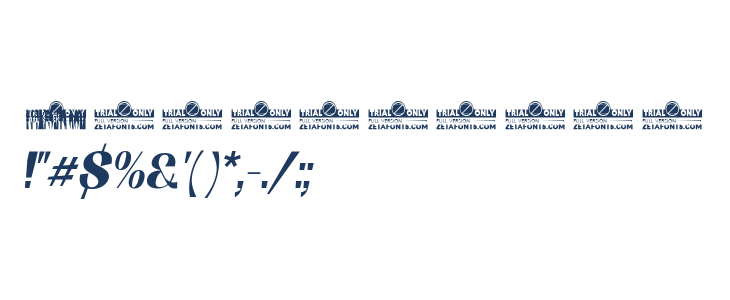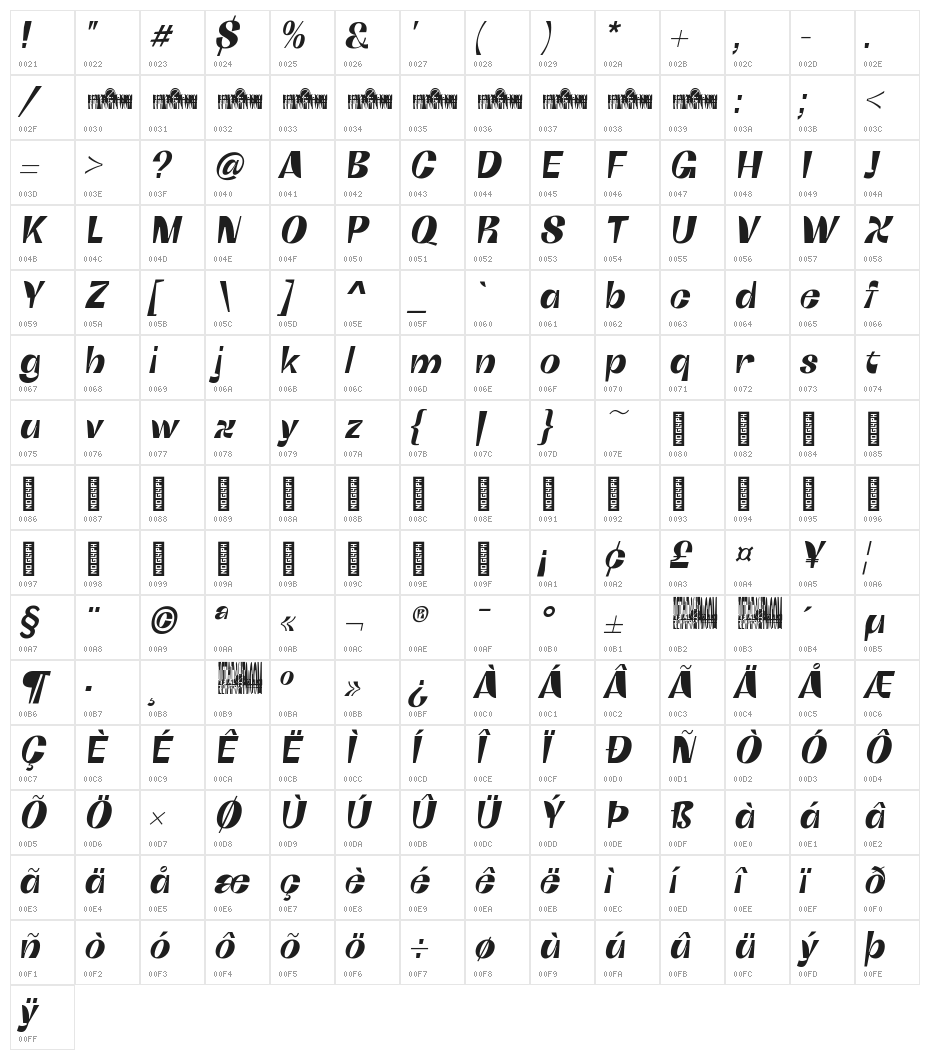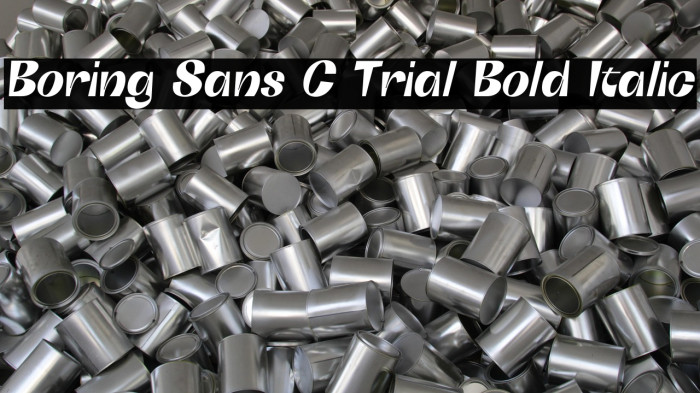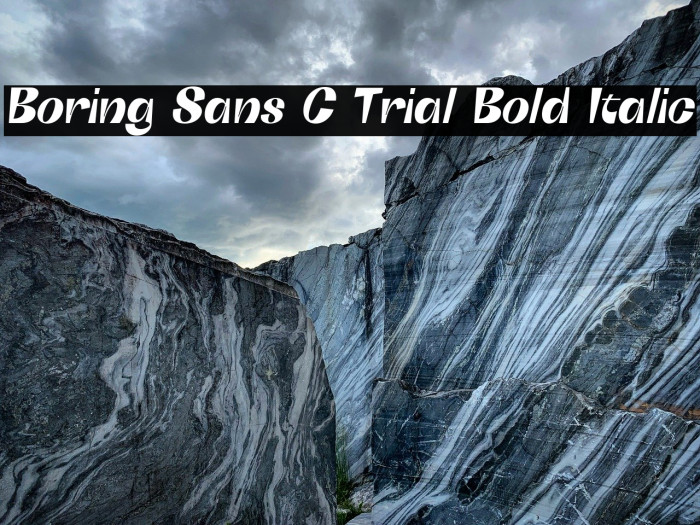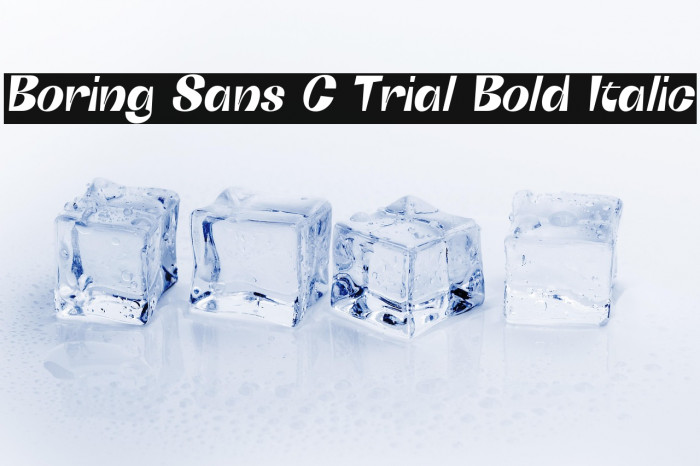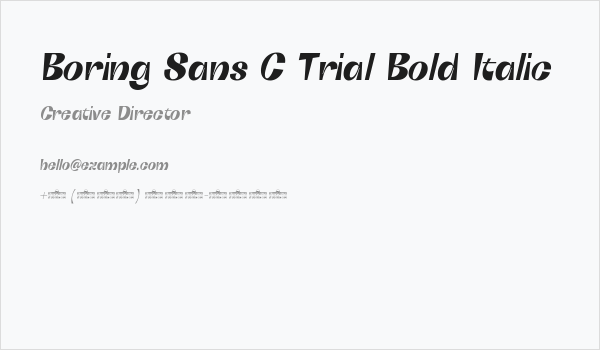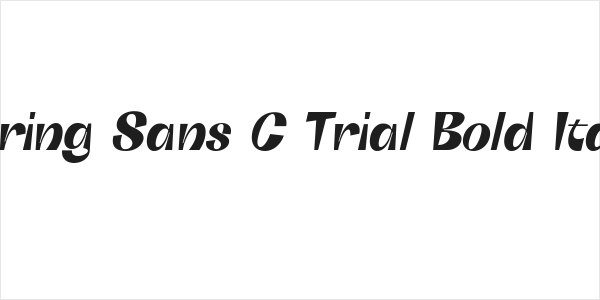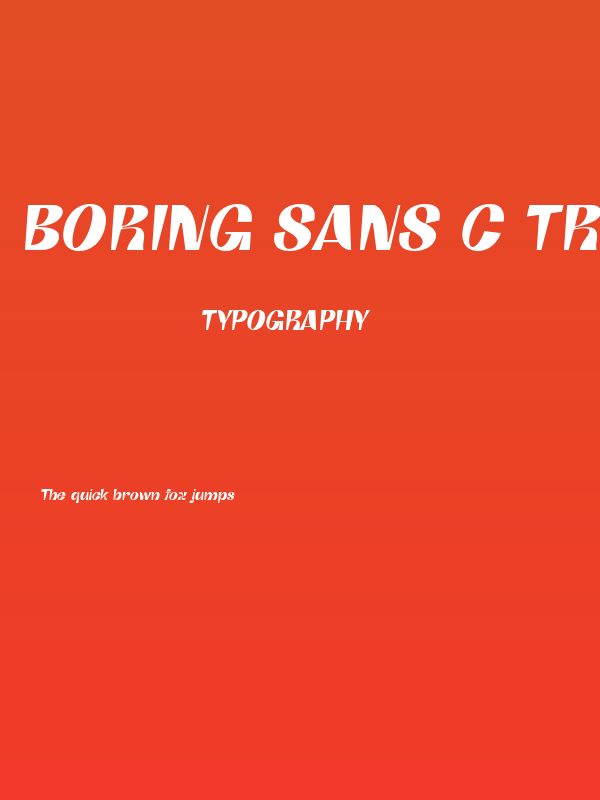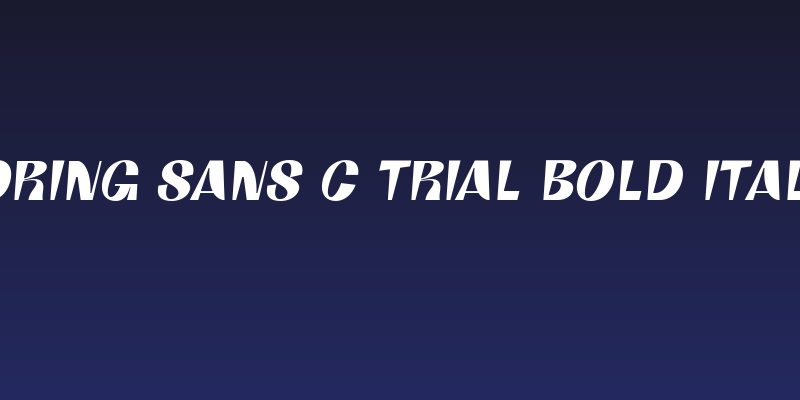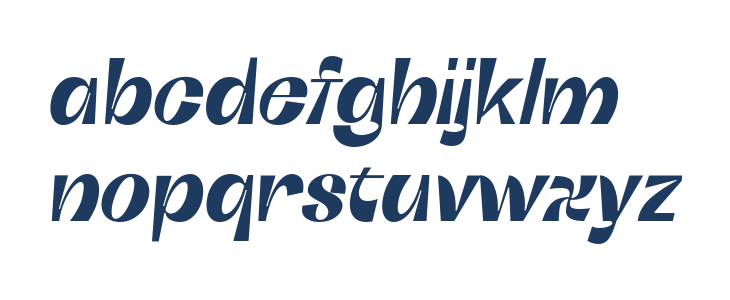
Boring Sans C Trial Bold Italic Font
Boring Sans C Trial Bold Italic Description
This font exhibits a bold and italicized style, characterized by its dynamic and forward-leaning appearance. The letters are sans-serif, providing a clean and modern look. The strokes are thick, contributing to a strong visual impact, while the italic slant adds a sense of movement and energy. The uppercase and lowercase letters maintain a consistent style, with rounded edges that soften the overall boldness. The numerals and special characters are designed to match the letterforms, ensuring uniformity across all elements. This font is versatile, suitable for various design applications where a bold statement is desired.